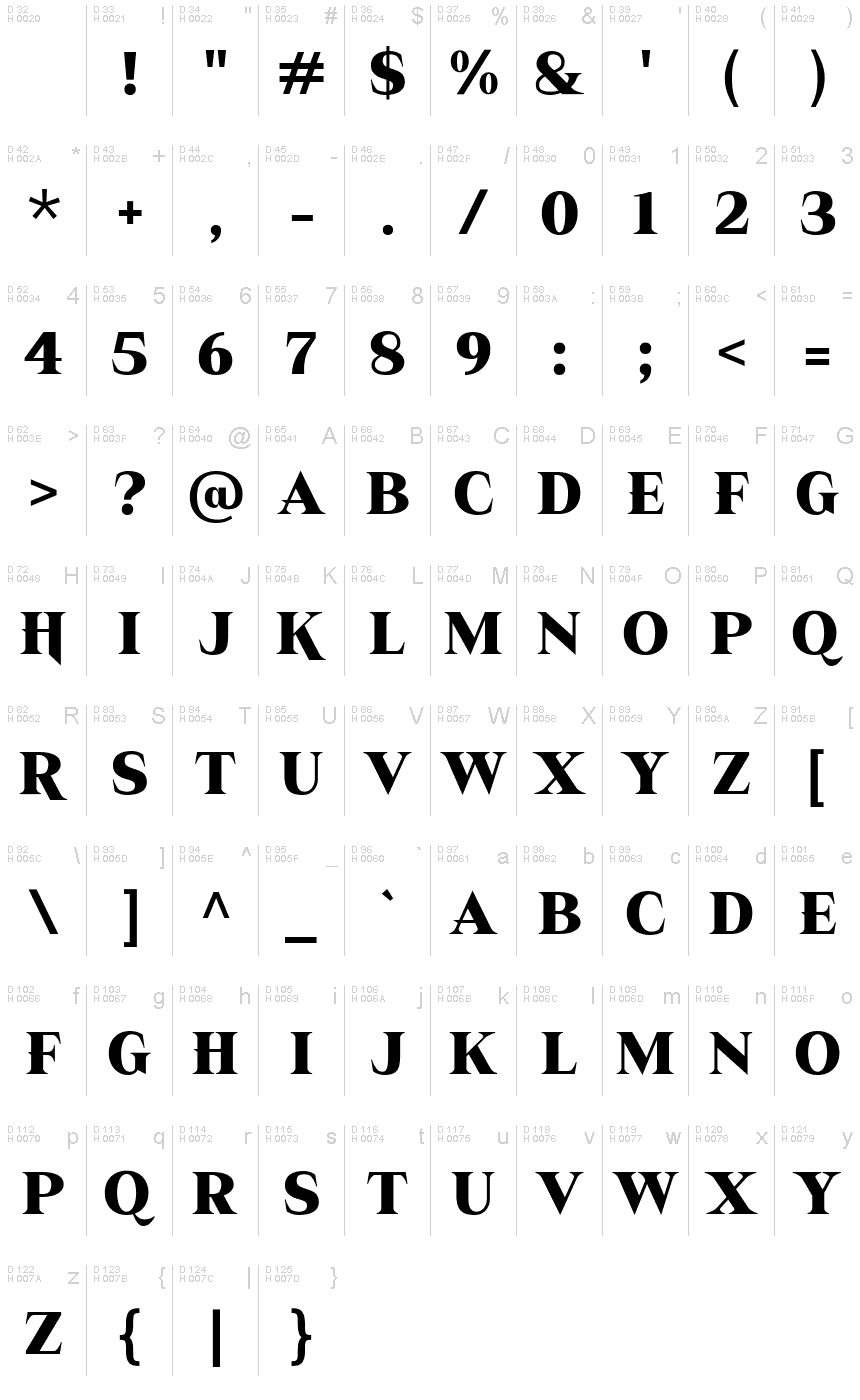
Wakinda Regular
Wakinda, the bold serif font designed by Faqih Fawaji, is the perfect blend of classic and contemporary. Its semi-expanded width allows for a comfortable reading experience while its bold weight ensures maximum impact. Wakinda's elegant serifs add a touch of sophistication to any project, making it suitable for titles, headlines and logos. Whether you're designing a magazine spread or creating branding material for your business, Wakinda will elevate your design with its timeless style. Don't settle for ordinary fonts - choose Wakinda and make a statement that will leave a lasting impression.